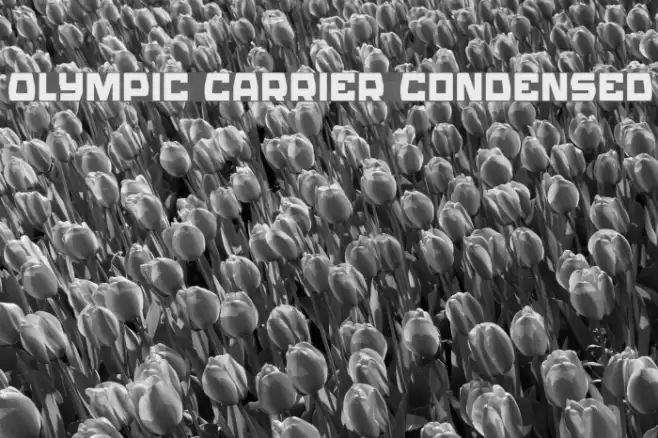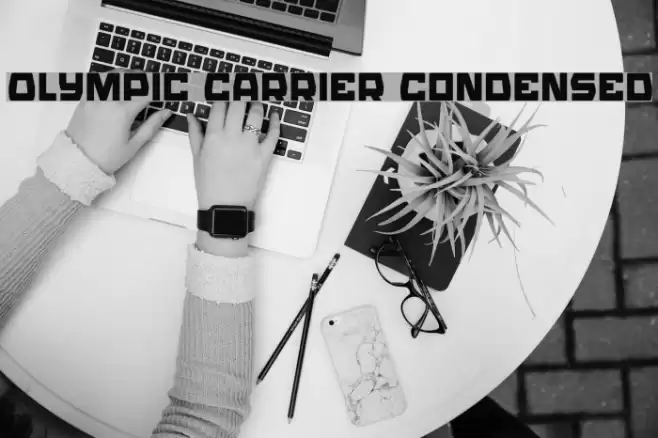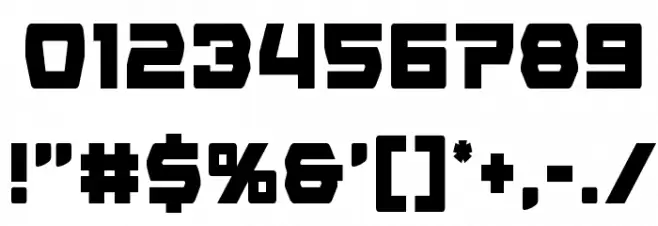
Olympic Carrier Condensed Font
Olympic Carrier Condensed Description
This font features a bold and impactful design with a condensed width, making it ideal for creating strong visual statements. The characters are blocky and geometric, with a uniform stroke width that gives it a modern and industrial feel. The uppercase letters are particularly striking, with sharp angles and a solid presence. The numerals and special characters maintain the same boldness, ensuring consistency across all text elements. This font is perfect for projects that require a commanding and assertive typeface.
A bold, condensed, and geometric font with a modern industrial style from Sci-fi fonts.
- Proposed Projects: Ideal for posters, headlines, branding, and any design needing a strong visual impact.